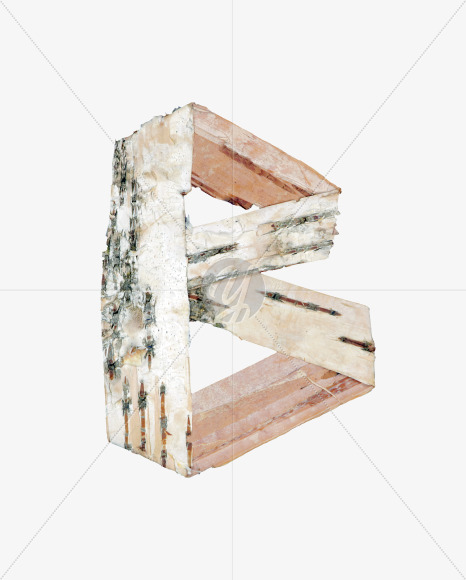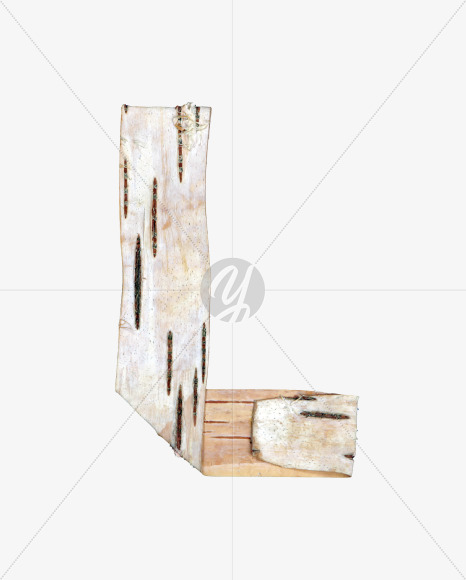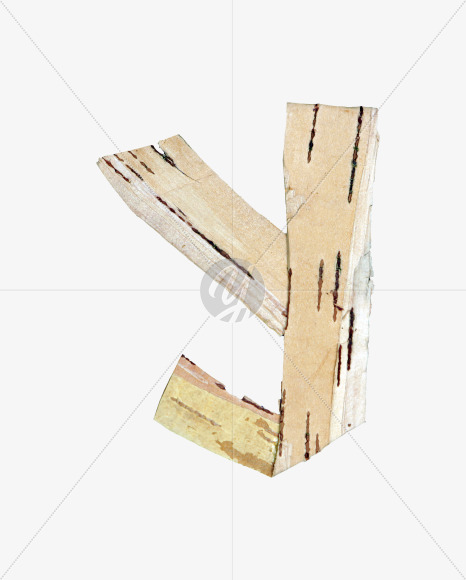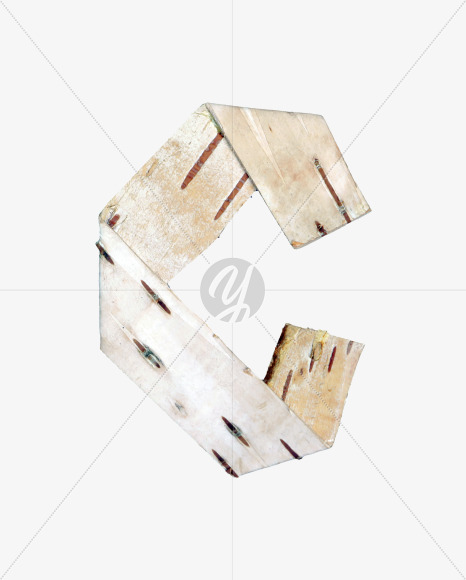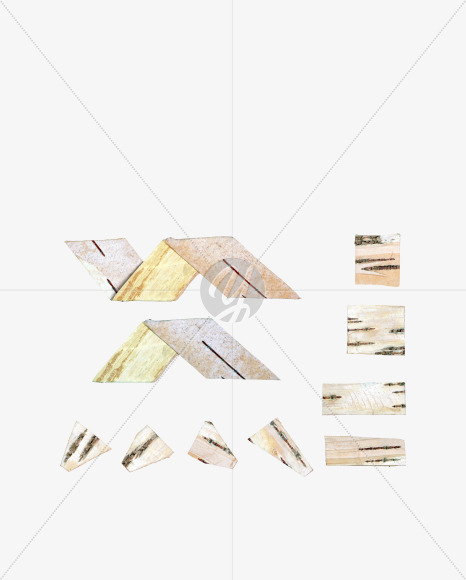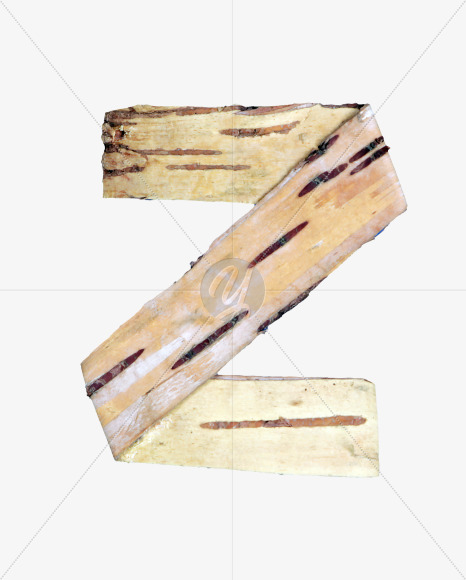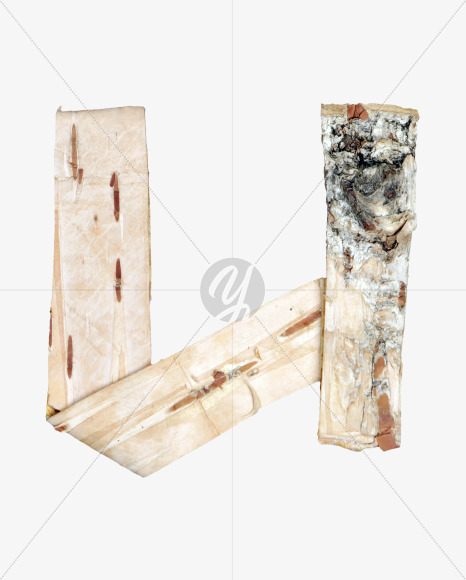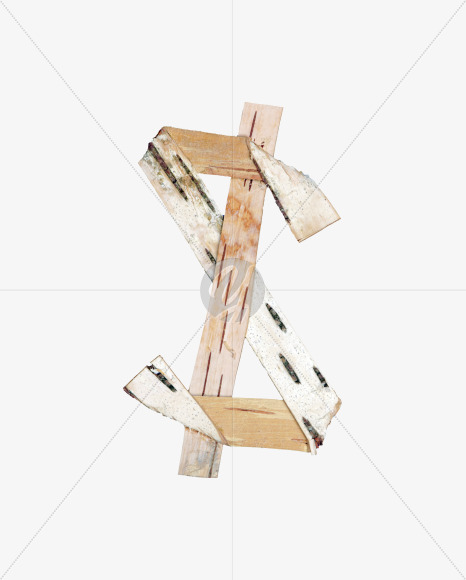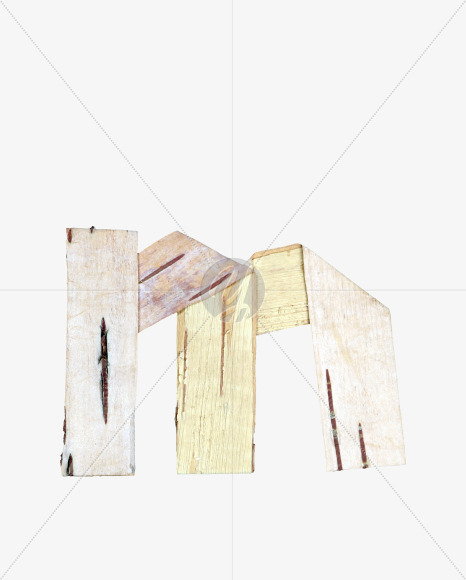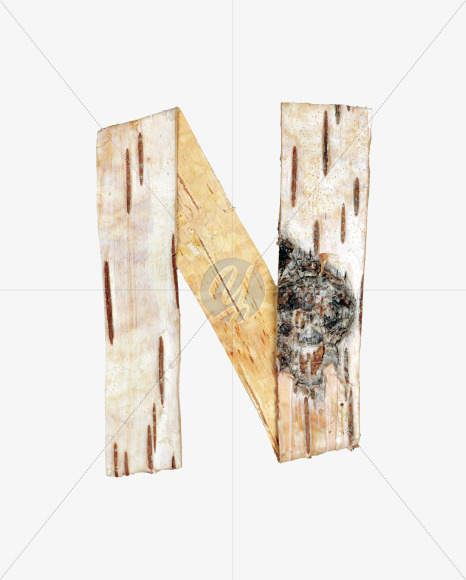
Mythical Origin Of Authentic Typeface
Actually, this authentic typeface has quite a history with mythology. Have you ever heard that our ancestors had given every tree a symbolic meaning? And birch had a special place in the folklore. Traditionally, it has a strong connection with regeneration, new hopes and beginnings, dawns, breaks of the day and, consequently, birth. So, we think that Birch Flat Font will give birth to some new creative ideas under your command. Why not to grow your own birchwood?